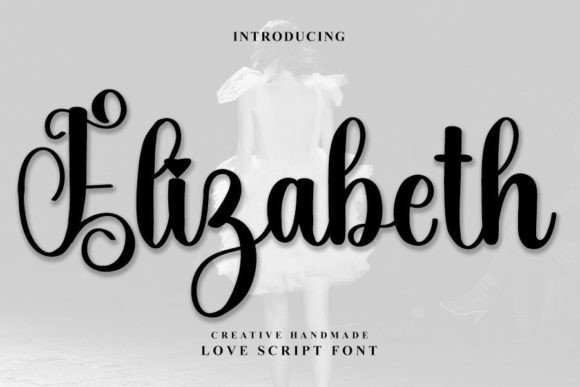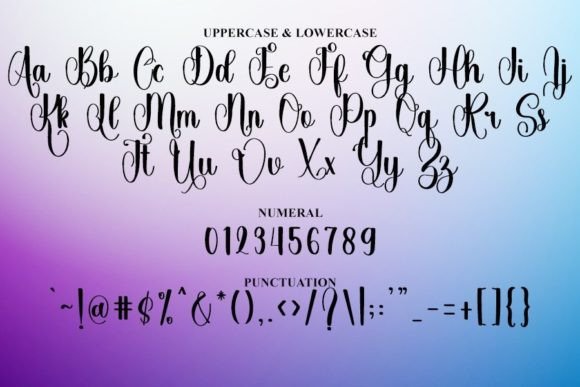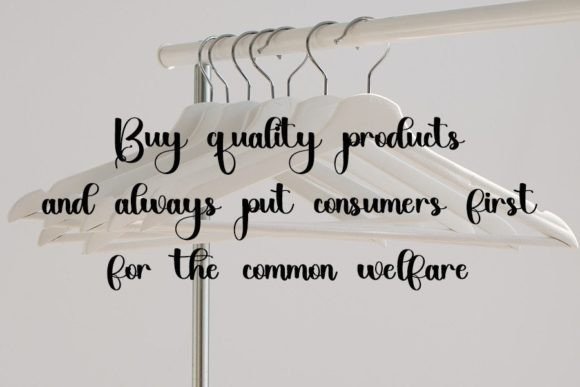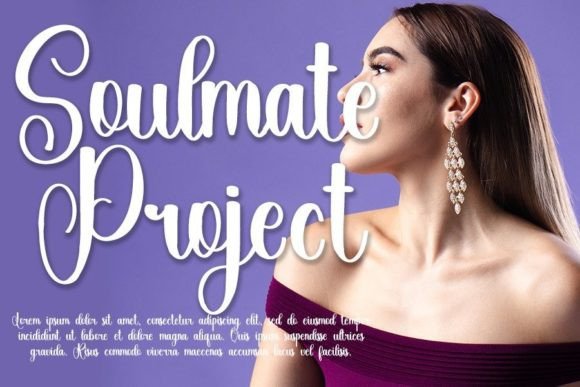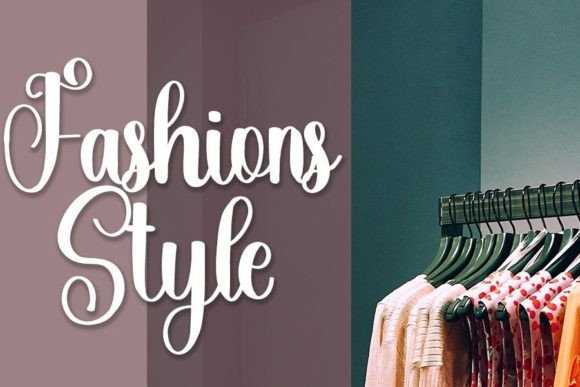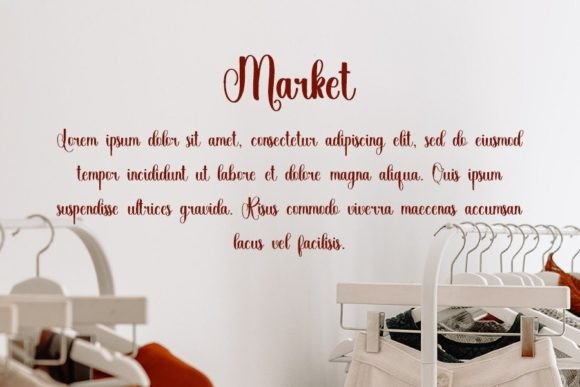
Elizabeth Font
About Elizabeth Font
“Elizabeth Font: Stylish Handwritten Elegance with a Contemporary Twist
Meet Elizabeth, a stylish handwritten font that radiates a contemporary atmosphere and impeccable form, drawing inspiration from timeless classic calligraphy. Meticulously crafted with a balanced and varied design, Elizabeth is the font of choice to enhance the beauty of your creative projects, adding a touch of modern elegance.
Elizabeth transcends the ordinary; it’s a design statement that seamlessly blends classic calligraphy influences with a contemporary flair. This typeface captures the essence of timeless elegance while exuding a modern and stylish vibe. Whether you’re working on invitations, branding, or any other creative project, Elizabeth is poised to elevate your designs with its refined charm.
The balanced and varied nature of Elizabeth ensures that each character is meticulously crafted, contributing to its overall visual appeal. The font’s impeccable form makes it a reliable choice for a wide array of design applications. From digital to print, Elizabeth adapts effortlessly to meet the demands of your creative vision.
Elizabeth’s contemporary atmosphere adds a fresh and stylish touch to your projects. Its handwritten elegance imparts authenticity and sophistication, making it suitable for branding, logos, and any design context where a modern yet timeless aesthetic is desired.
Whether you’re working on digital graphics, wedding invitations, or any project that demands a touch of elegance, Elizabeth is the font that stands ready. Its versatility allows it to enhance various creative endeavors, creating a visual experience that resonates with beauty and sophistication.
In conclusion, Elizabeth is more than just a font; it’s a design companion that brings stylish handwritten elegance to your creative toolkit. Let Elizabeth be the brushstroke that enhances the beauty of your projects. Whether you’re aiming for a contemporary vibe or timeless classic allure, Elizabeth is the perfect choice to infuse your designs with style and visual appeal.”